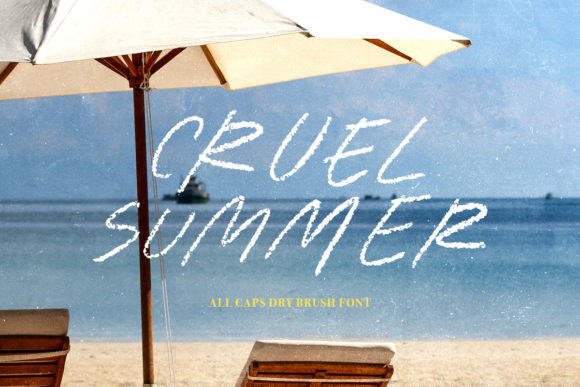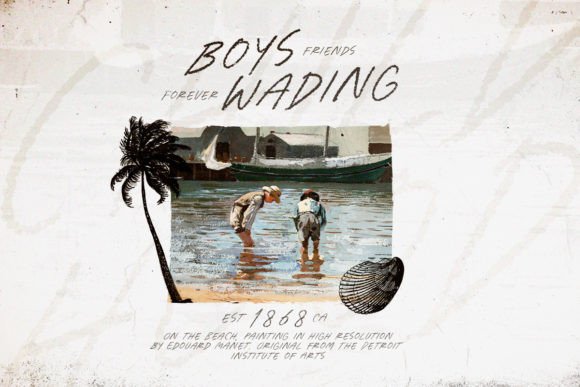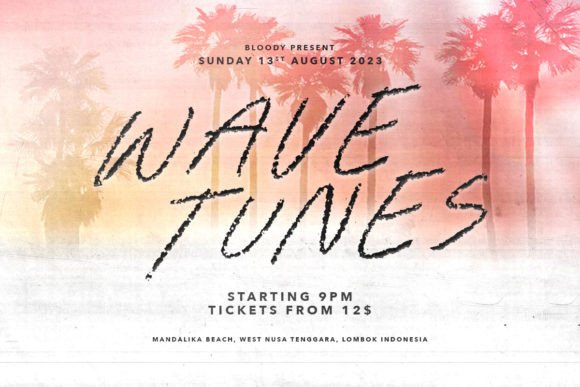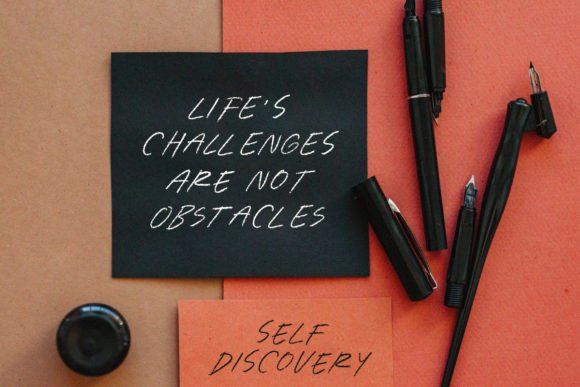
Cruel Summer Font: Rustic Dry Brush Font for DIY & Cricut Projects
About the Cruel Summer Font
Unleash your creativity with Cruel Summer Font, a versatile font perfect for a wide range of applications. Cruel Summer is an all caps font, made with dry brush. With the texture and roughness, this font is suitable when you need a font with handmade and chalk looks. You can use this font for quotes, suitable for menus, slogan, or anything that require rough and texture. With different uppercase and lowercase, you can combine both in one word that will make your text more natural handwritten looks. This font also support multi language!
Cruel Summer’s dry brush texture makes it ideal for headlines, short slogans, and branding elements where a handcrafted, slightly rebellious feel is desired. It works exceptionally well on posters, packaging for artisanal products, and social media graphics requiring a touch of informal authenticity. Avoid using it for body text or lengthy paragraphs; its texture can become visually fatiguing at smaller sizes and in continuous blocks.
This font’s personality is bold and slightly edgy, yet approachable. To balance this, pair Cruel Summer with a clean sans-serif like Montserrat for body copy or a more refined serif like Playfair Display for a touch of elegance. For a more playful effect, consider pairing it with a script font like Great Vibes, but use it sparingly to avoid visual clutter.
The font’s inherent roughness would clash with projects needing polished sophistication or minimalist design. It’s best suited for brands conveying a sense of rustic charm, handcrafted quality, or a casual, expressive approach.